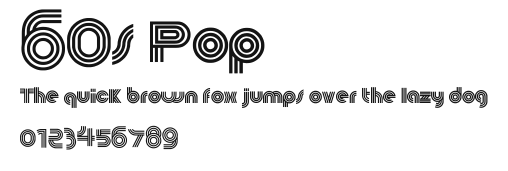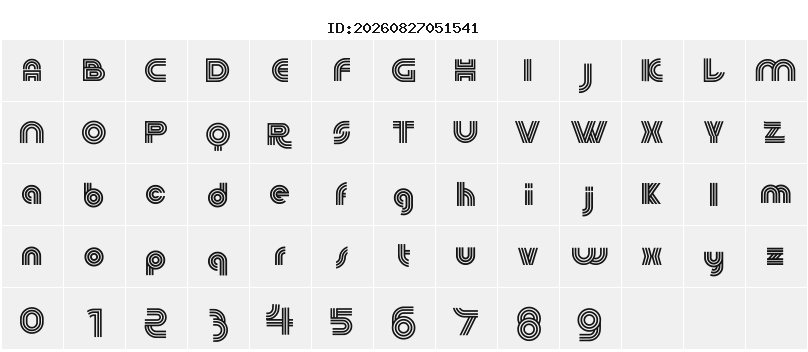
• Font Name: 60s Pop
About 60s Pop.ttf
60s Pop.ttf is a modern, elegant sans-serif font designed for ultimate readability and visual harmony. Perfect for branding, headlines, web design, and print materials.